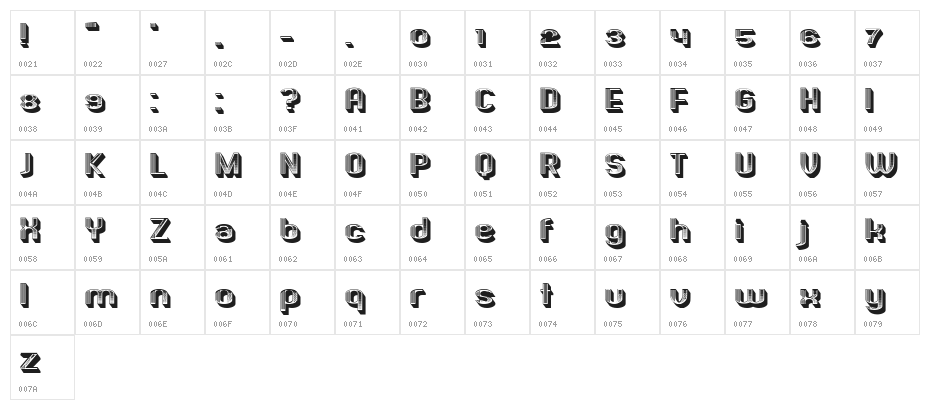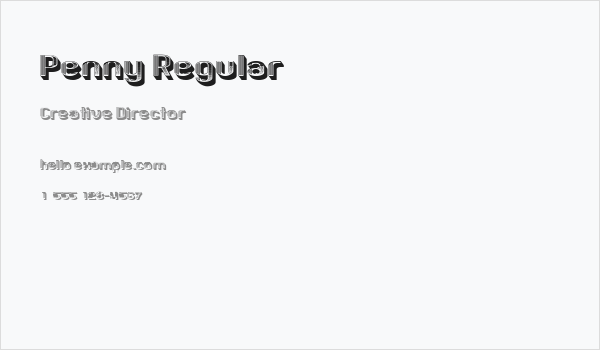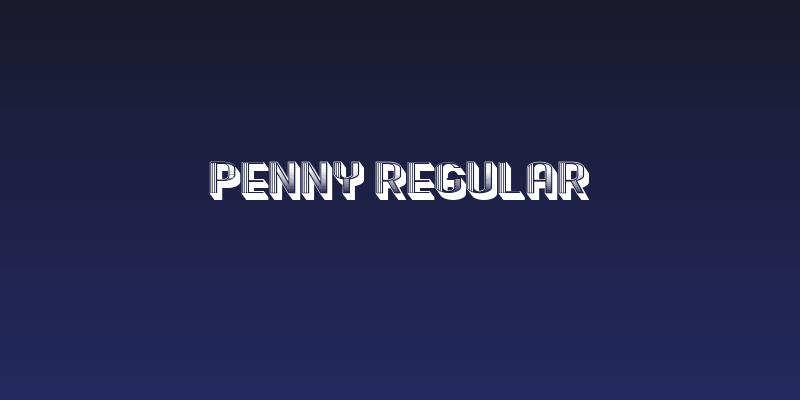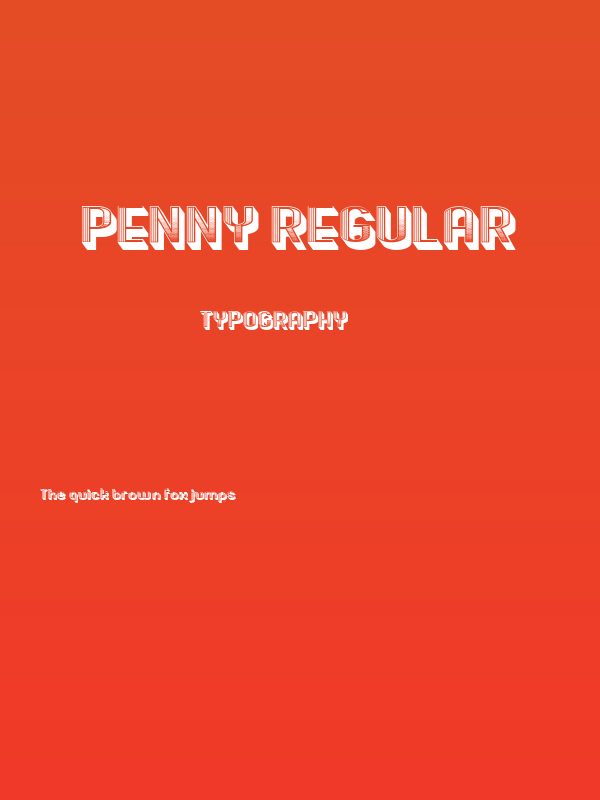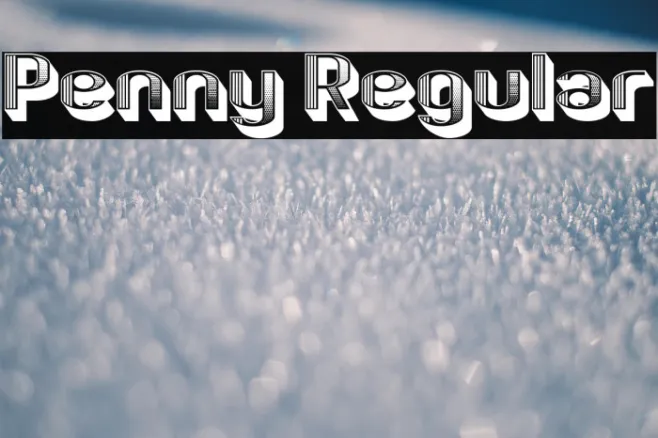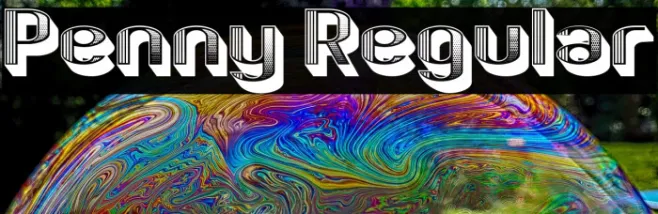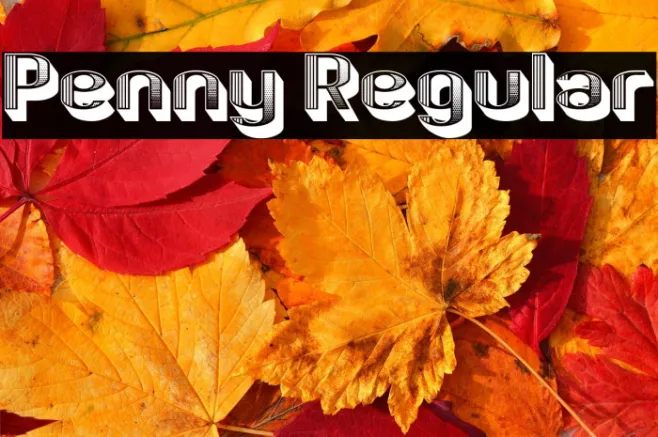
Penny Regular Font
Penny Regular Description
This font features a bold, three-dimensional design with a distinct shadow effect that gives it a striking appearance. The characters are uppercase and lowercase, with numerals and a selection of special characters. The style is reminiscent of vintage signage, with a playful yet structured form. The letters have a striped pattern on the face, adding texture and depth. This font is highly decorative, making it ideal for eye-catching designs where the text needs to stand out.